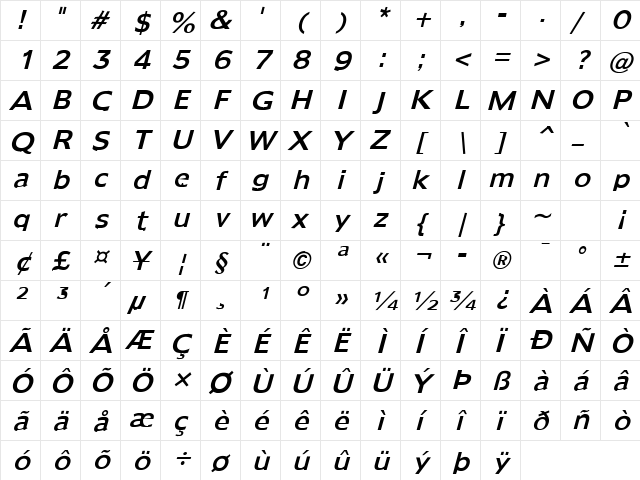
Rain Song 6 Italic
Design Context for Rain Song 6 Typeface
Rain Song 6 is a composed and adaptable typeface that performs quietly and consistently across a wide range of design contexts. The slanted form adds forward momentum and visual energy.
Pro Tip: Try Rain Song 6 for annotation and caption copy alongside an upright companion — the contrast in angle creates a dynamic but ordered typographic system.